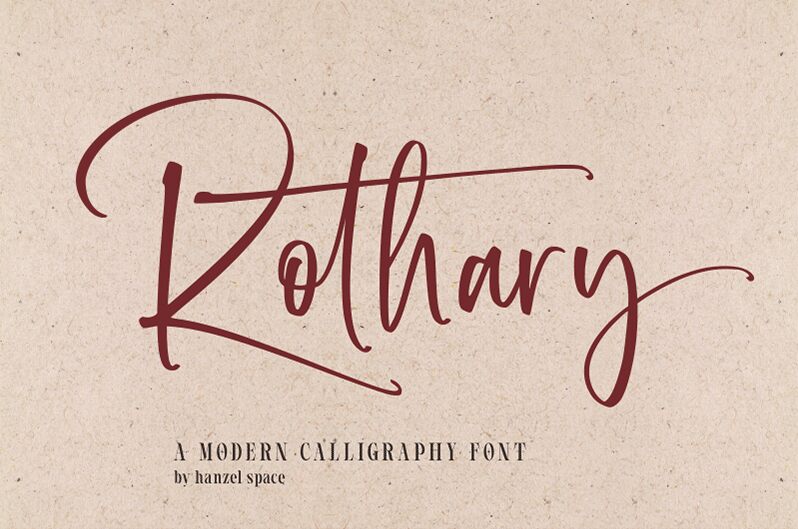
Rothary
Rothary, the latest handwritten font designed by Hanzel Space, is perfect for creative projects that require a personalized touch. With its extra-light weight, this font exudes elegance and sophistication, making it ideal for wedding invitations, fashion branding, and editorial designs. Its playful curves and irregularities give your project a unique character that stands out from the crowd. Rothary’s simplicity also makes it easy to read on digital platforms, making it suitable for website headers or social media graphics. Let this charming semi-bold typeface elevate your designs to new heights!
Introducing Rothary Script Font
Rothary Script Handwritten Font with contemporary, sophisticated accents. It is perfect for branding, wedding invites, tagline, cards, maybe for label and logo.
Rothary includes full set of gorgeous uppercase and lowercase letters, numerals, a large range of punctuation and ligatures. It expresses beauty of handwriting. What you get
Standard Ligatures
Numerals and Punctuation